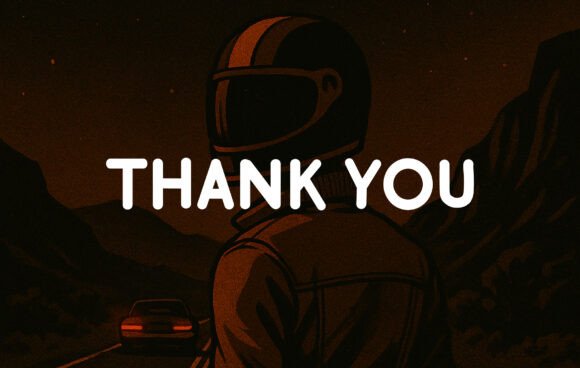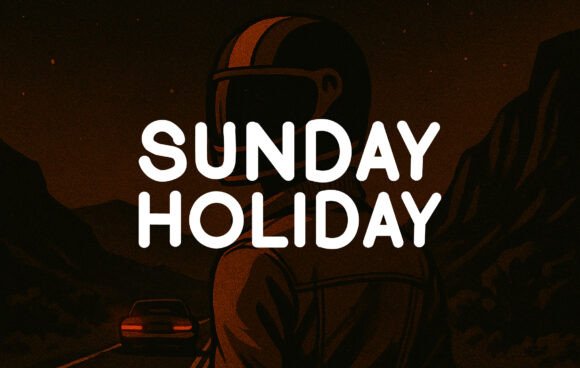
Introduction to Road 13 Font
As a designer, you’ve probably experienced that moment when the perfect font suddenly sparks an idea for your next creative project. It’s like the universe is telling you that your design is about to take a leap forward. For me, that moment came when I stumbled upon the Road 13 Font, and I knew I had to dive deeper.
The Road 13 Font is a game-changer, offering a unique blend of style and versatility that makes it an invaluable resource for designers. With its high-quality design and transparent background, this font is perfect for a wide range of creative applications, from magazine headlines to social media graphics. Whether you’re working on a personal project or a client’s branding, the Road 13 Font has the potential to elevate your design to new heights.
Key Features of Road 13 Font
- Designed with a unique aesthetic, featuring a distinctive style that sets it apart from other fonts
Honest Review: Road 13 Font
As a designer, I’m always on the lookout for high-quality design resources to enhance my creative projects. Recently, I stumbled upon the Road 13 Font, and I must say it’s a great addition to my design arsenal.
Here are some things that work well with the Road 13 Font:
- ✨ It comes in a variety of styles, making it perfect for different design needs.
- ✨ The font is highly customizable, allowing me to adjust it to suit my project’s unique requirements.
- ✨ The transparent background makes it easy to use with different backgrounds and images.
- ⚠️ The font may not be suitable for very small text sizes, as it can become difficult to read.
- ⚠️ Some users may find the font’s design to be a bit too simple for their taste.
Overall, I’m impressed with the Road 13 Font. It’s a solid choice for designers looking for a high-quality, versatile font that’s easy to use. While it may have some limitations, its benefits far outweigh its drawbacks.
How to Use Road 13 Font
The Road 13 Font is a high-quality design resource ideal for creative projects. Its unique and elegant design makes it perfect for various applications, including logos, headings, and body text.
The Road 13 Font is perfect for various design projects, including:
Tips for Getting the Most Out of Road 13 Font
To get the most out of the Road 13 Font, use it in combination with other design elements, such as images and graphics. Experiment with different font sizes and colors to create a visually appealing design.